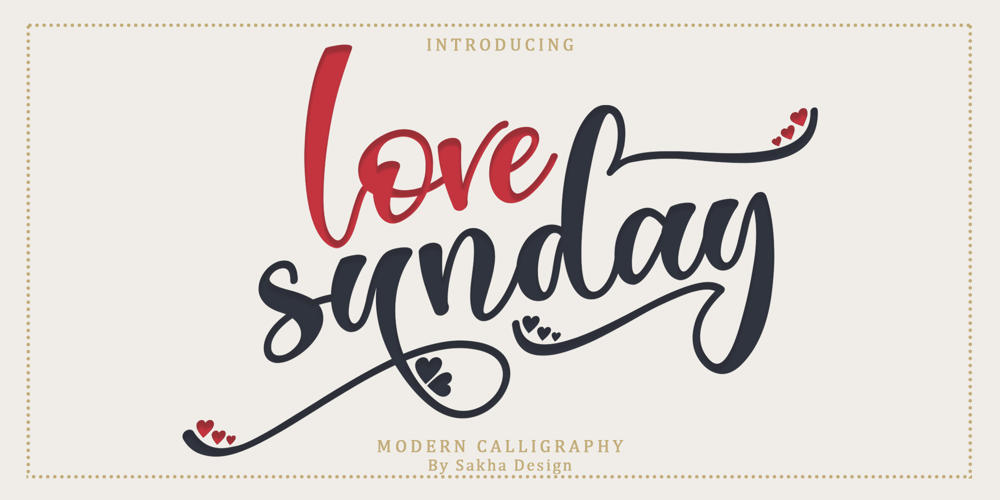
Love Sunday Font Family was designed by Alif Ryan Zulfikar and published by Sakha Design. Love Sunday contains 2 styles and family package options. Love Sunday is a romantic and sweet calligraphy typeface with characters that dance along the baseline. It will add a luxury spark to any design project that you wish to create! Love Sunday is PUA encoded which means you can access all of the glyphs and swashes with ease!